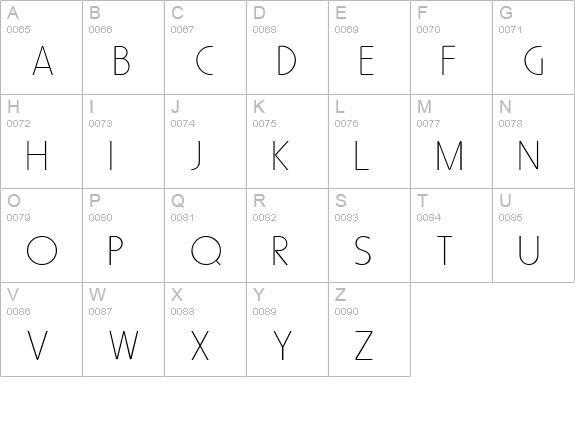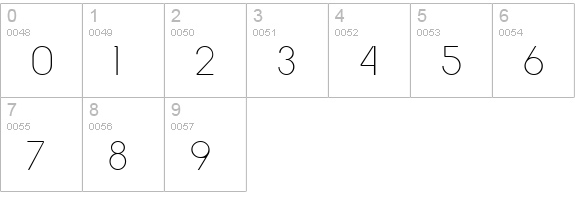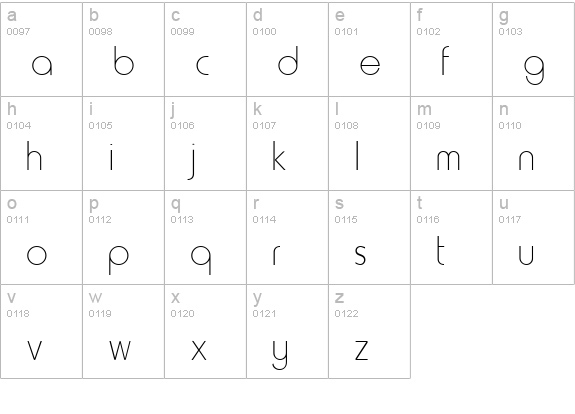
Harry Regular Font Details
Harry Regular is the standard, neutral variant in the Harry typeface family \xE2\x80\x94 well suited to general body text, paragraphs, and standard typographic work.
Harry Regular font is a versatile typeface that exudes a sense of timeless elegance and sophistication. With its clean lines and subtle curves, this font is perfect for a wide range of design projects, from branding and advertising to editorial layouts and website design. What sets Harry Regular font apart is not only its impeccable design, but also the fact that it is available for free. That's right, you can download this beautiful font without spending a dime. So whether you're a professional designer looking to add a touch of class to your work or simply a typography enthusiast searching for a new favorite font, Harry Regular is the ideal choice. To get your hands on this stunning font, simply head over to FontsMarket.com. There, you'll find a vast collection of fonts, including Harry Regular, all available for free download. FontsMarket.com makes it easy and convenient to access high-quality fonts without breaking the bank. So why wait? Elevate your design projects with the timeless beauty of Harry Regular font. Download it for free at FontsMarket.com and unleash your creativity today.